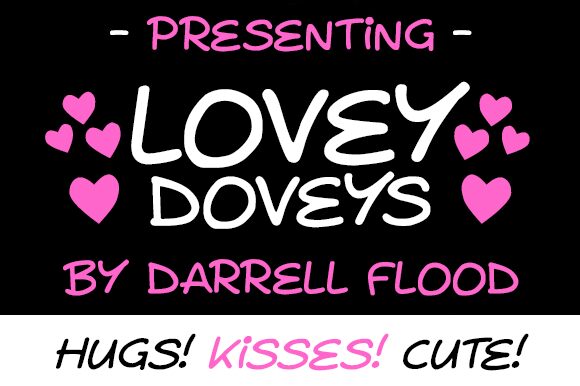
Lovey Doveys Italic
Introducing Lovey Doveys Italic, the perfect font for adding a touch of whimsy to any project. This casual handwritten font by Darrell Flood is light and airy, with a wide width that adds playfulness to your designs. Its italic style lends an elegant yet relaxed feel, making it ideal for wedding invitations, greeting cards, and personalized crafts. Use Lovey Doveys Italic to create unique branding for your blog or social media presence, or add a fun twist to children's book illustrations. Elevate your designs with Lovey Doveys Italic – the ultimate font for spreading joy and love through your work.